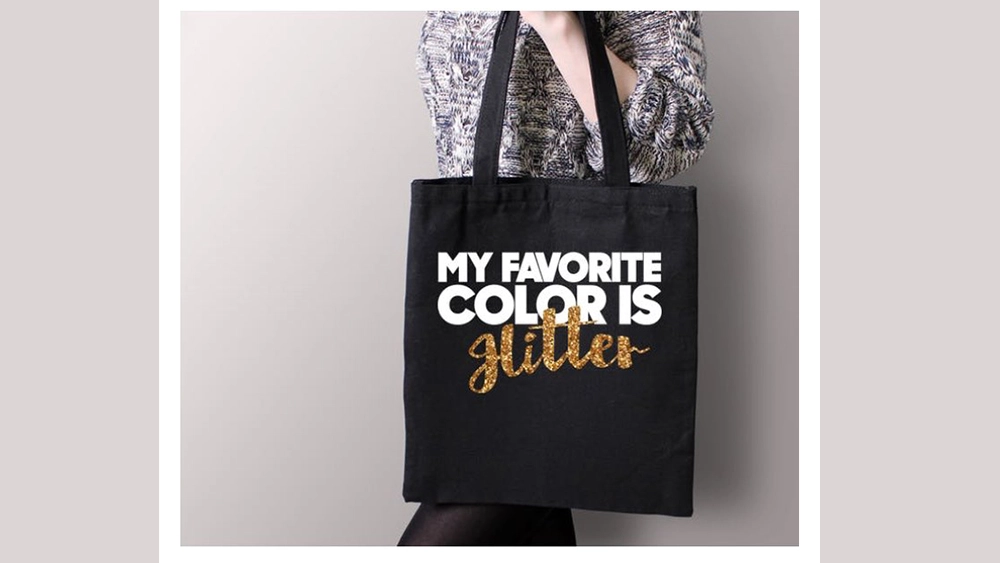
These hilarious font fails are a typographer's nightmare
Some people spend hours agonising over what font to use for even the most trivial of communicational messages. Others really don't. We've surely all seen some terrible font fails out there but they may pale in comparison to some of the travesties gathered in an online forum collecting some of the most questionable typographic decisions spotted in the wild.
From unfortunate resemblances to unintended letters to text that's entirely illegible or just downright ugly, the Font Gore subreddit is a repository for crimes against typography (see our picks of the best free fonts and perfect font pairings if you want to avoid the same fate).
Over on Reddit, people have been posting typographical travesties in the Font Gore subreddit since way back in 2015, and there are some clangers. From unfortunate double entendres to unintentional comedy, here's a sample.
ah yes. the cilantro lime enema.from r/fontgore
Not what you expect with your take out.
They tried (x-post r/therewasanattempt)from r/fontgore
No excuses at all for not finding the way.
This is on all county sheriff vehicles… (x-post r/suspiciousquotes)from r/fontgore
The quotation marks on this are just a bonus.
Felt like this belonged herefrom r/fontgore
Saturday Night Live's favourite font... AKA the Avatar font.
That’s my favorite color toofrom r/fontgore
Führer gold?
Tw*t yourselffrom r/fontgore
Just rude!
Art is Anal ?from r/fontgore
Well, it can be, to be honest.